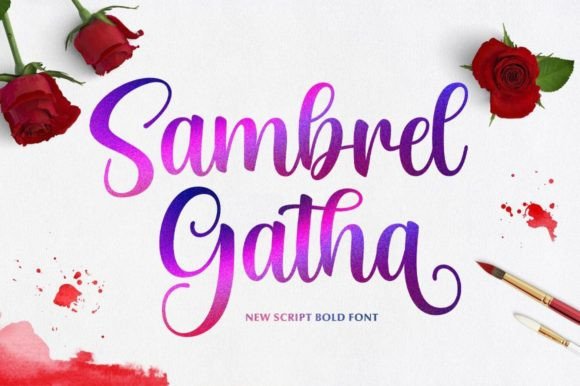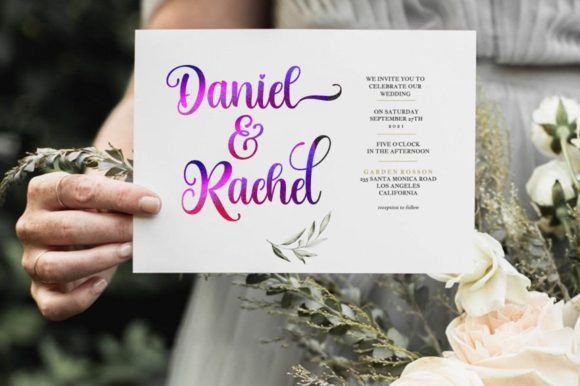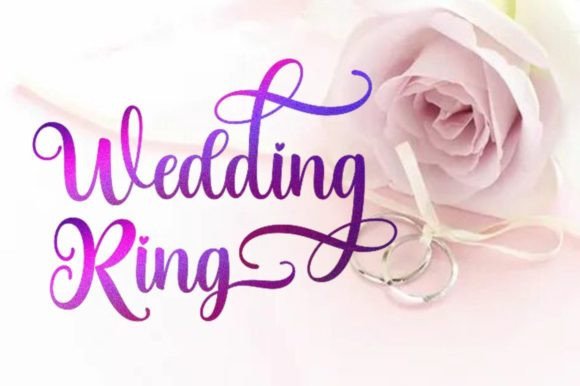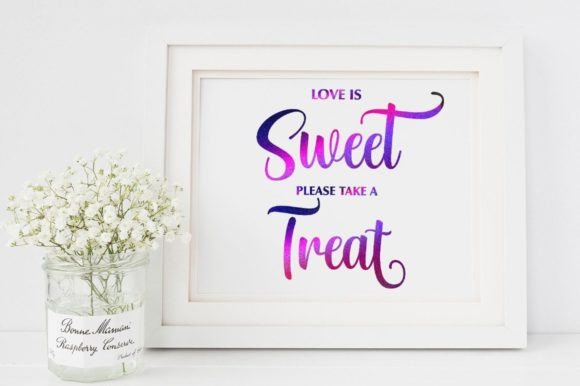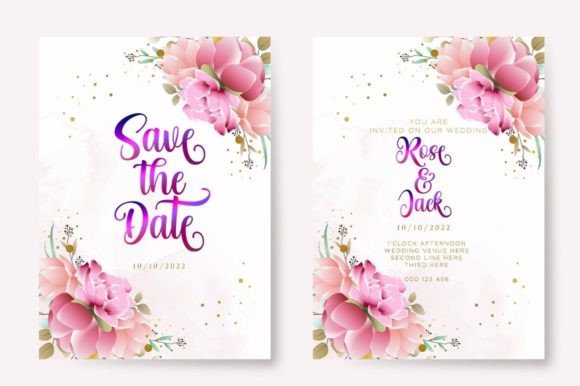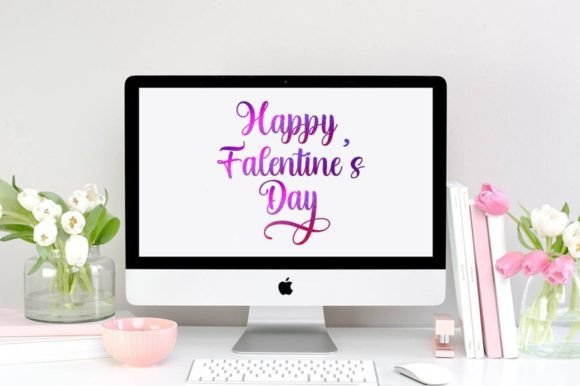
About Sambrel Gatha Font
“Sambrel Gatha” is a lovely script font that combines a contemporary atmosphere with impeccable form, drawing inspiration from timeless classic calligraphy. Striking a balance between not being too thin or too thick, this font is crafted to enhance the beauty of your projects. The font’s PUA encoding ensures easy access to all glyphs and swashes, providing designers with seamless flexibility and creative freedom.
The contemporary yet timeless design of “Sambrel Gatha” makes it suitable for a wide range of projects. Whether you’re working on branding materials, invitations, posters, or any creative endeavor that demands a touch of elegance, this font adds a sophisticated and visually appealing element.
The balanced thickness of the font contributes to its readability and visual appeal. It strikes a harmonious balance that makes it versatile for various design contexts without compromising on style.
With PUA encoding, designers have the convenience of accessing a rich set of glyphs and swashes, allowing for customization and personalization. This feature empowers designers to explore and utilize the font’s full spectrum of decorative elements, adding unique and creative touches to their projects.
In conclusion, “Sambrel Gatha” is more than just a font; it’s a design tool that brings contemporary elegance to your creative projects. Its balance of form and thickness, along with PUA encoding, makes it a versatile and customizable choice for enhancing the visual beauty of your designs. Embrace the timeless charm of “Sambrel Gatha,” and let it elevate your projects with its lovely script style.